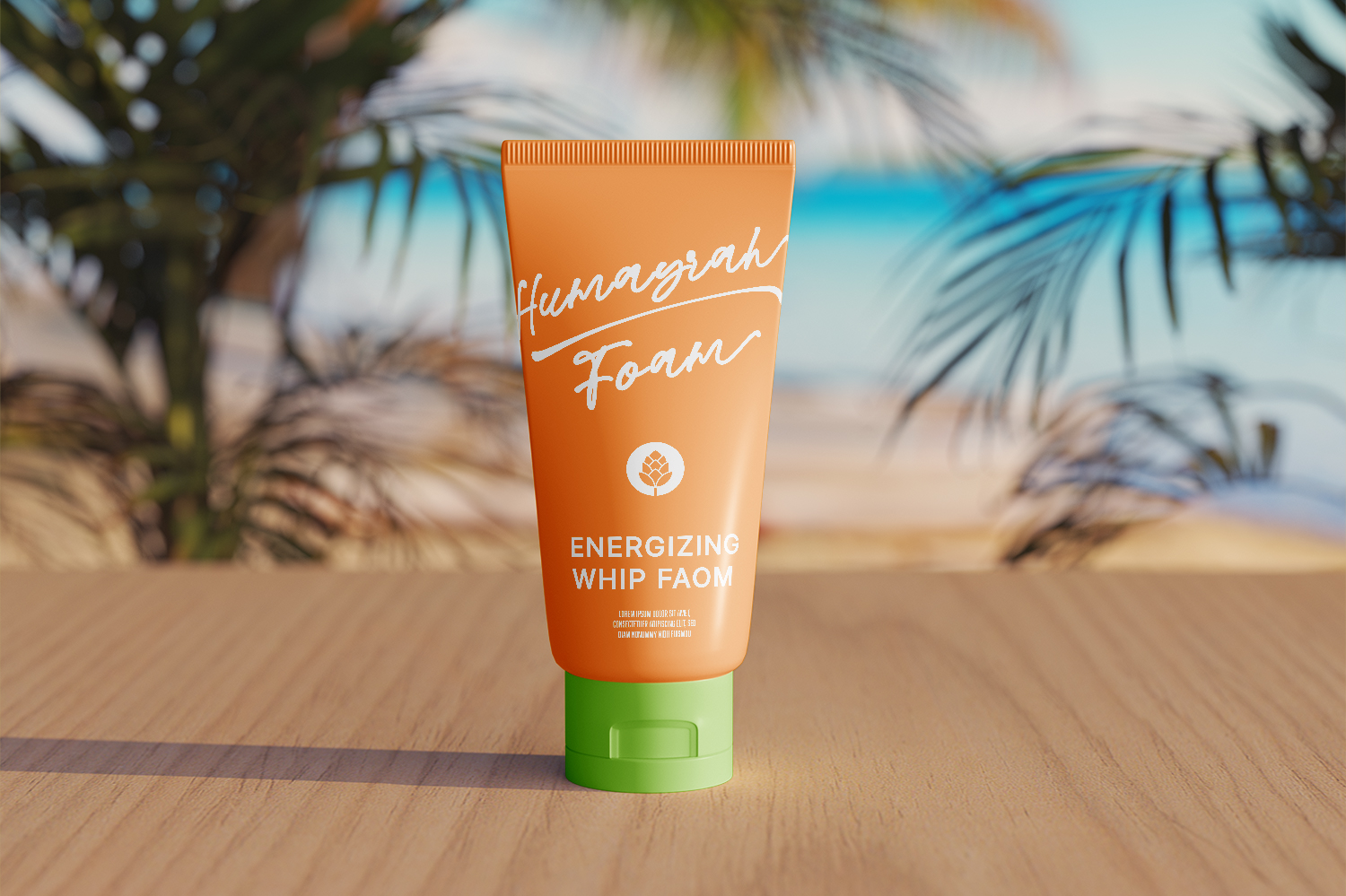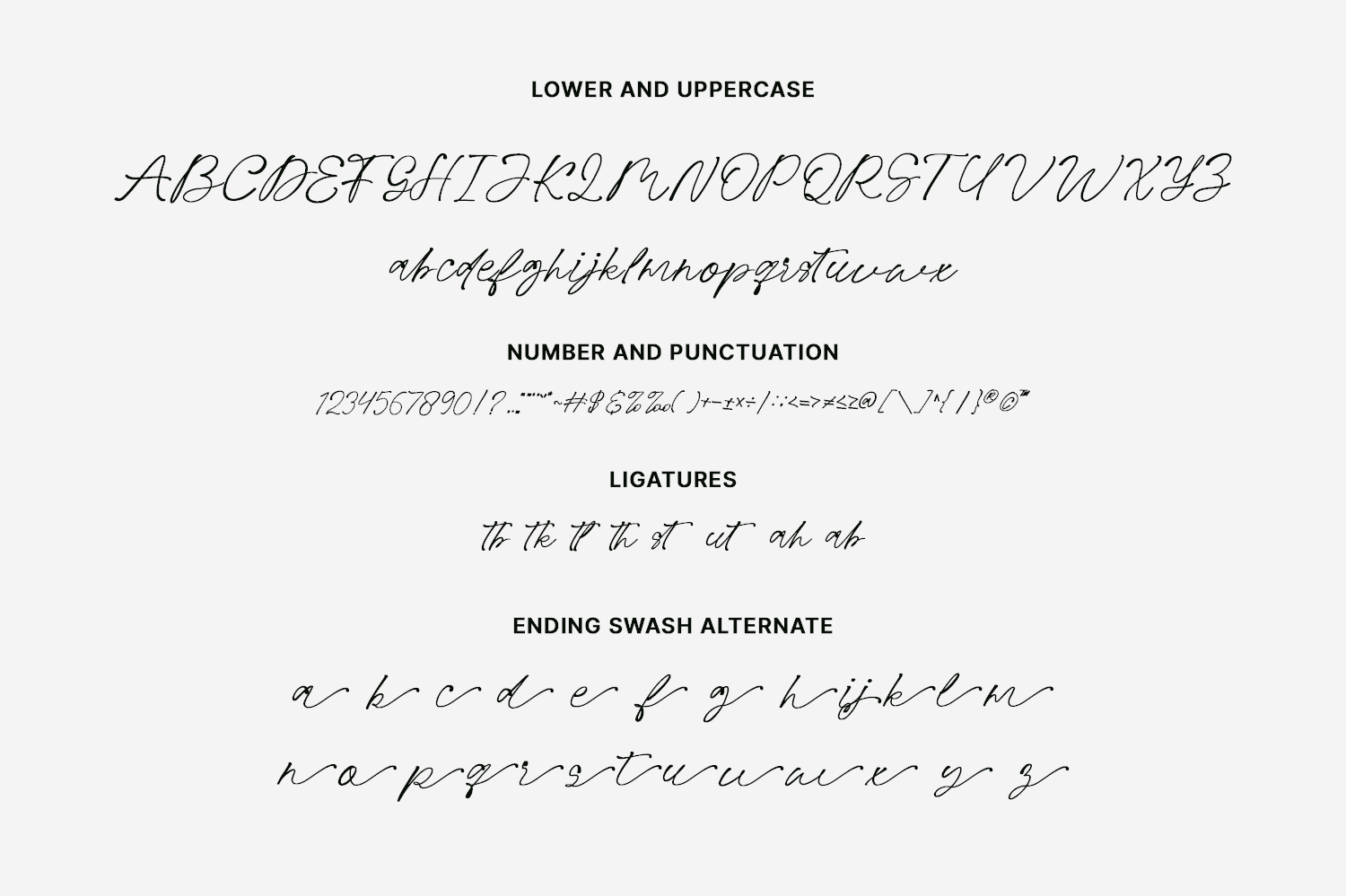
Humayrah is a stylish handwritten script font with a natural flow and elegant charm. It features a full set of uppercase and lowercase letters, numbers, punctuation, ligatures, and swash alternates—perfect for adding a personal touch to invitations, branding, logos, or social media graphics. With its smooth curves and subtle details, Humayrah brings a handwritten warmth to any design.